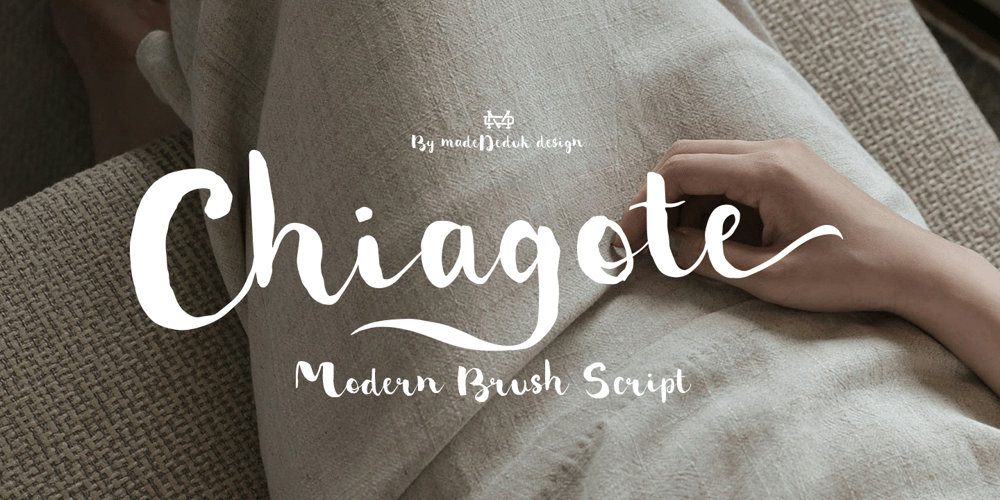
Chiagote Font Family was designed by madededuk and published by madeDeduk. Chiagote contains 1 styles and family package options. Really excited to introduce Chiagote is a realistic brush script! Come with much alternative and this font perfect for poster design, book covers, merchandise, fashion campaigns, newsletters, branding, advertising, magazines, greeting cards, album covers and more.